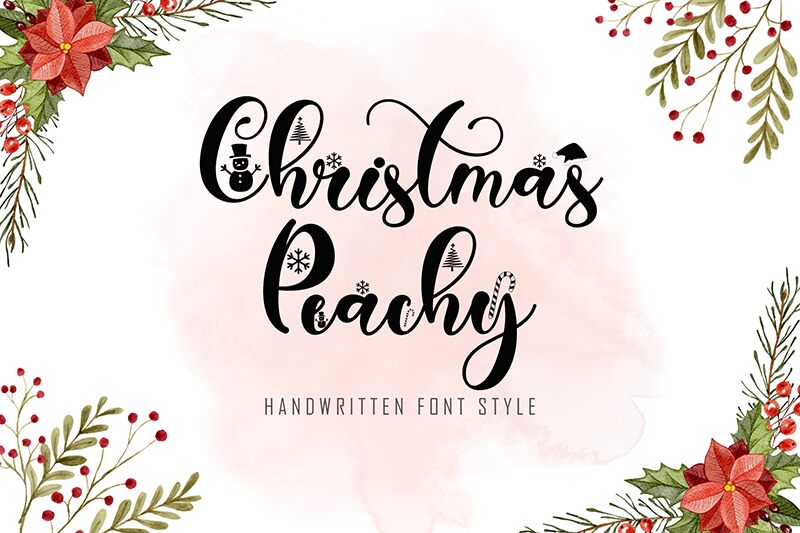
Christmas Peachy font is a festive creation by Yoga Letter. This whimsical typeface beautifully marries playful elegance with decorative elements, bringing a joyful and inviting touch to any design project. Infused with modern handwritten and imaginative details, this font exudes a seasonal feel that’s both engaging and stylish.
Ideal for holiday cards, invitations, gift tags, and seasonal banners, Christmas Peachy also fits well into branding projects that seek a festive tone. This font can additionally enhance social media graphics, flyers, posters, or website visuals dedicated to holiday promotions or celebrations.